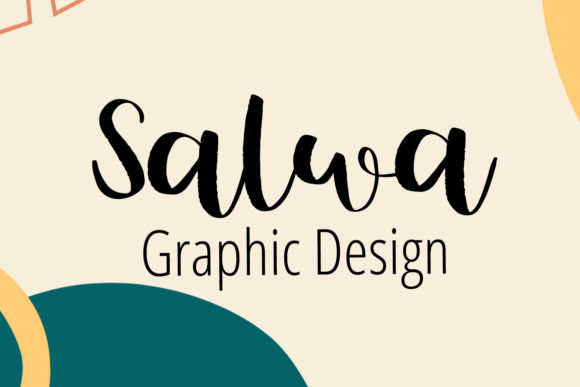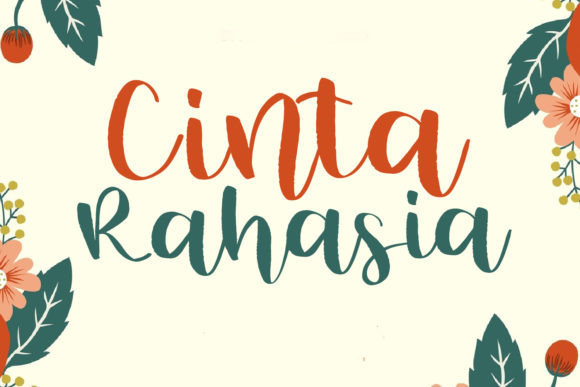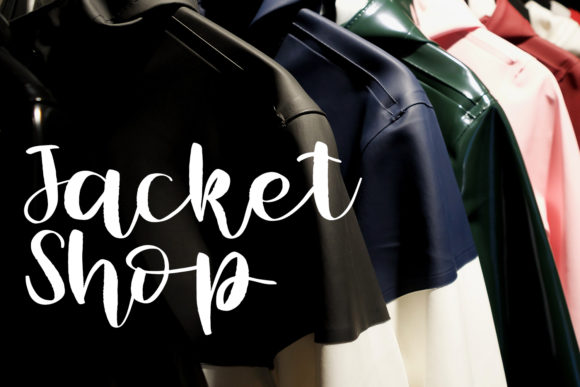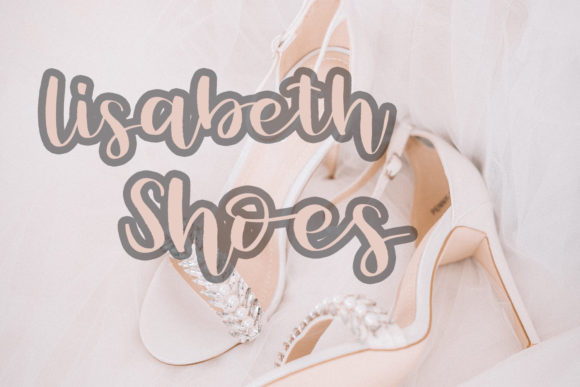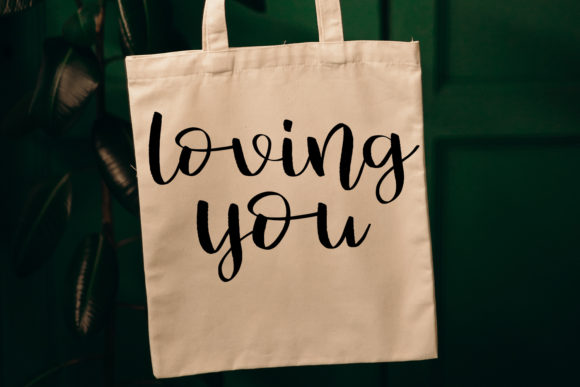
About Summer Time Font
Summer Time is a fresh and sweet handwritten font. Its distinct and well rounded letters make this font a masterpiece. Fall in love with its incredibly versatile style and use it to create spectacular designs!